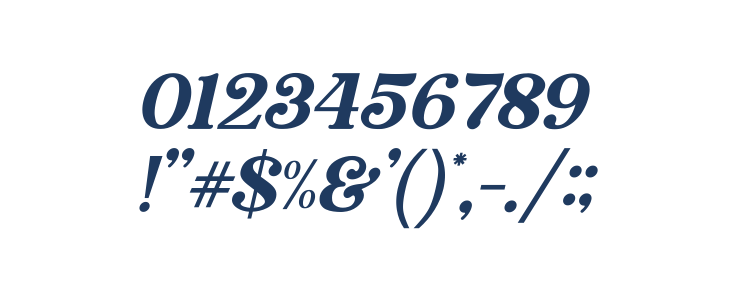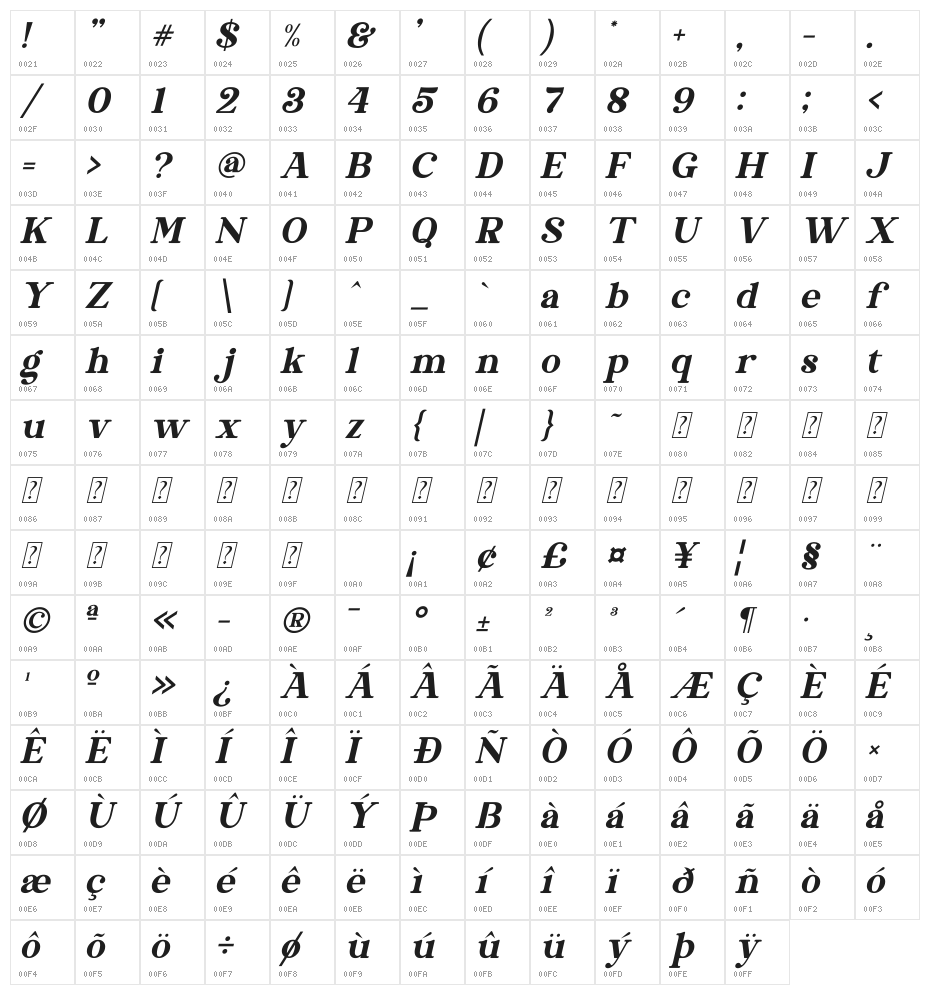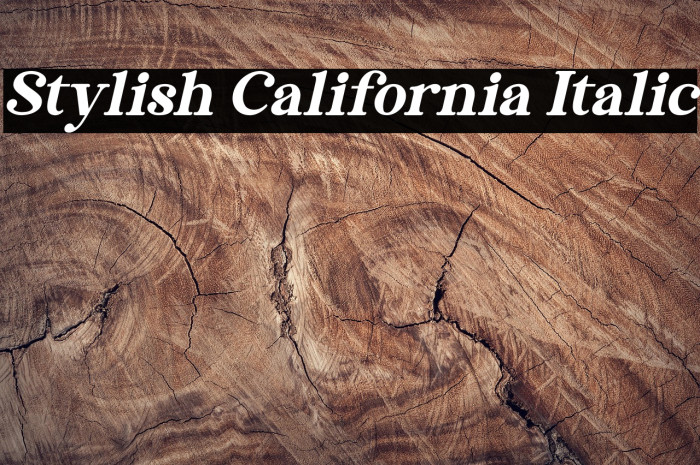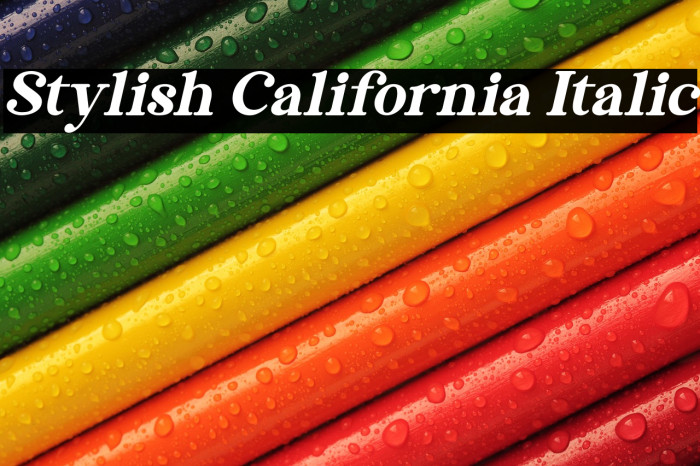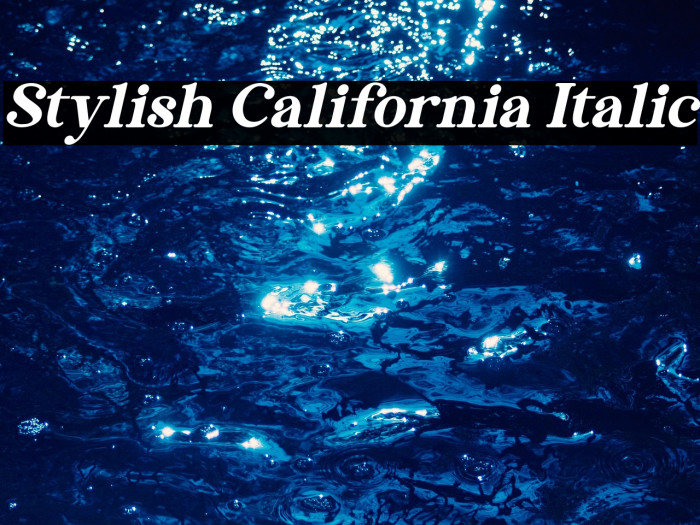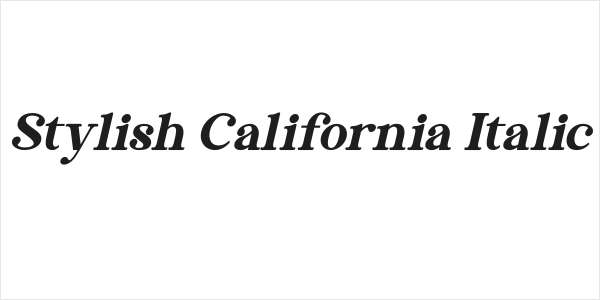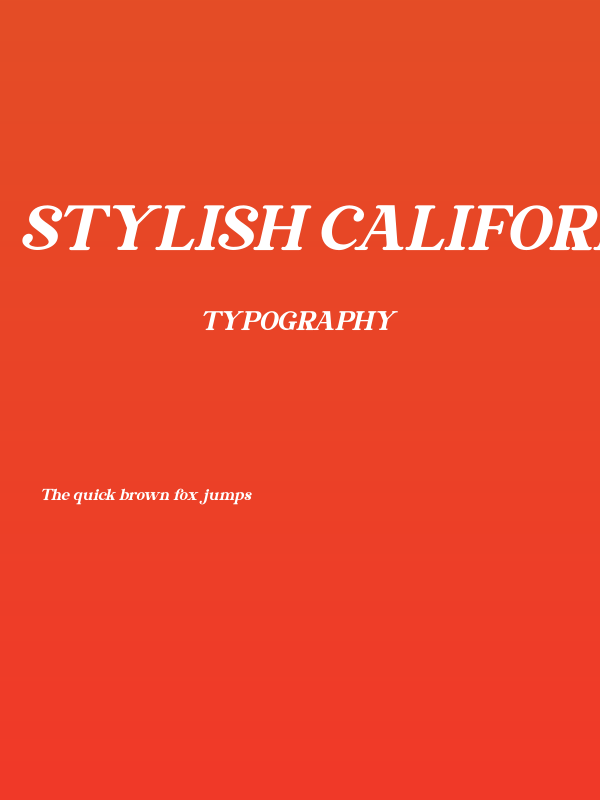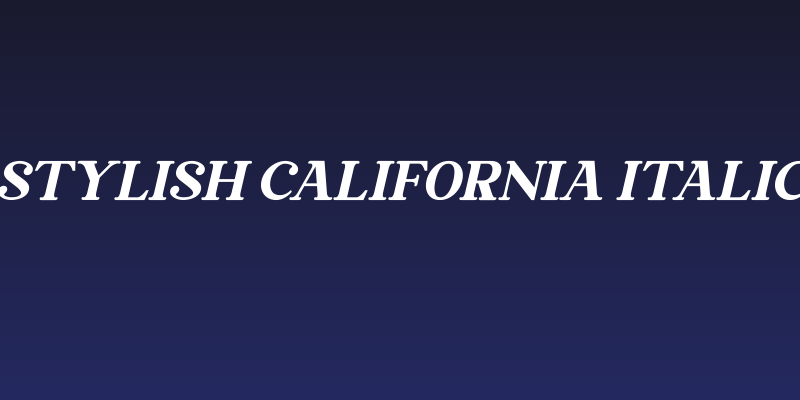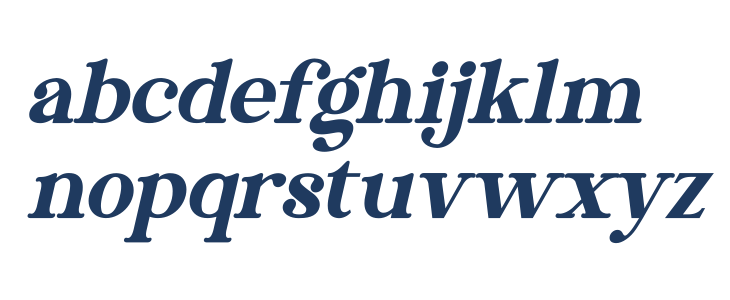
Stylish California Italic Font
Stylish California Italic Description
This font exudes a classic elegance with its italicized serif style, offering a sophisticated and timeless appeal. The letters are gracefully slanted, providing a sense of motion and fluidity. The serifs are pronounced yet refined, adding a touch of formality and tradition. The overall design is balanced, with moderate contrast in stroke thickness, ensuring readability while maintaining an artistic flair. The numerals and special characters are designed to complement the alphabet, maintaining consistency in style and weight. This font is ideal for projects that require a touch of class and elegance.
| Proposed Projects | Ideal for wedding invitations, formal event programs, luxury brand logos, and editorial design. |